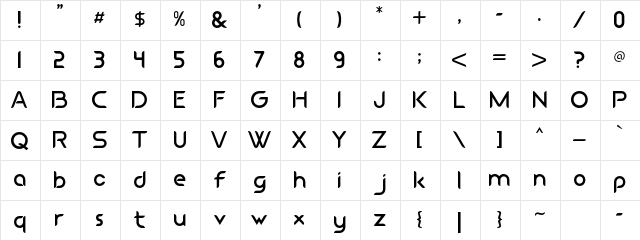
Cano Regular
| Designer | Sandy Luke Nugroho |
Design Context for Cano Typeface
Cano offers clean, dependable letterforms without strong stylistic allegiance, making it a practical choice for designers who need flexibility.